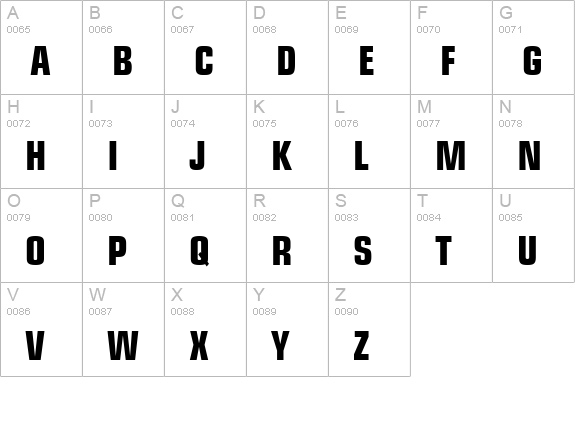
Palindrome Condensed SSi Bold Condensed is a strong, high-contrast, condensed-width variant in the Palindrome typeface family \xE2\x80\x94 well suited to headlines, attention-grabbing titles, and strong calls-to-action.
Introducing Palindrome Condensed SSi Bold Condensed font, a bold and condensed typeface that exudes a sense of confidence and modernity. With its sleek and streamlined design, this font is sure to make a statement in any project or design. Palindrome Condensed SSi Bold Condensed font is perfect for creating eye-catching headlines, attention-grabbing logos, and stylish branding materials. Its condensed nature allows for maximum impact, making it ideal for limited space layouts and designs that require a bold and compact look. What sets Palindrome Condensed SSi Bold Condensed font apart is its versatility. Whether you're working on a professional presentation, a creative advertising campaign, or a personal project, this font is sure to elevate your design to new heights. And the best part? Palindrome Condensed SSi Bold Condensed font is available for free download at FontsMarket.com. That's right, you can access this stunning font without any cost, making it a must-have for designers and creatives on a budget. Don't miss out on the opportunity to enhance your projects with Palindrome Condensed SSi Bold Condensed font. Download it for free today at FontsMarket.com and unlock a world of endless design possibilities.